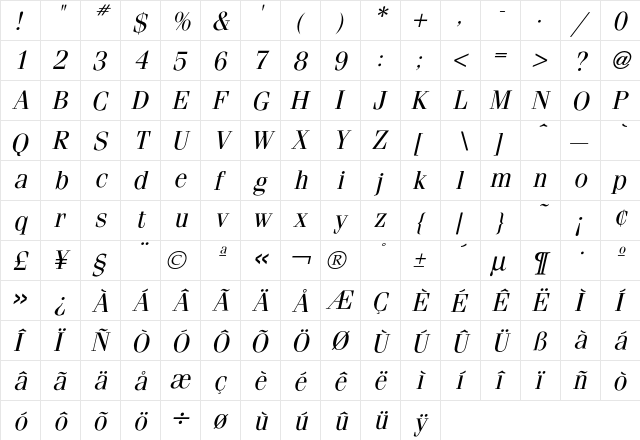
Fenice BookItalic
Design Context for Fenice Typeface
Fenice is a composed and adaptable typeface that performs quietly and consistently across a wide range of design contexts. Its italic angle brings a sense of urgency and motion to the letterforms.
Pro Tip: Try Fenice for annotation and caption copy alongside an upright companion — the contrast in angle creates a dynamic but ordered typographic system.